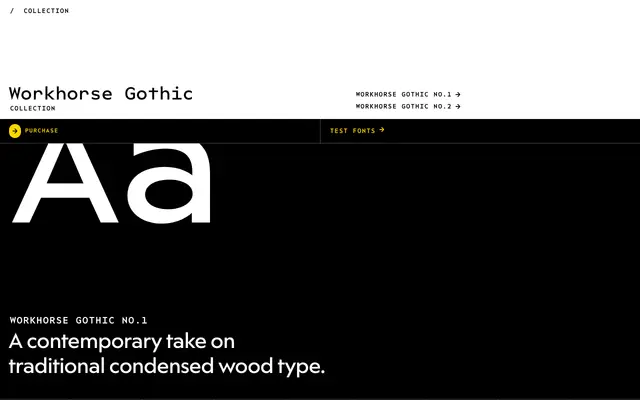
Workhorse Gothic Collection
A two-family gothic display collection drawing on condensed wood type, each offered across nine weights, obliques and a reverse variant in both standard and condensed widths.
The collection pairs Workhorse Gothic No.1, a contemporary take on traditional condensed wood type, with No.2, a squarish companion suited to more compact lockups. Both families run nine weights from Hairline to Ultra, each with oblique and reverse styles, across standard and condensed widths, totalling 54 styles apiece and 108 across the collection. Variable font support spans the full range, making it practical for display, poster and identity work requiring tight typographic control.
Rooted in condensed wood type traditions, the collection presents two gothic display families with narrow proportions, oblique variants and a squarish sibling, placing it firmly in the American gothic display lineage.